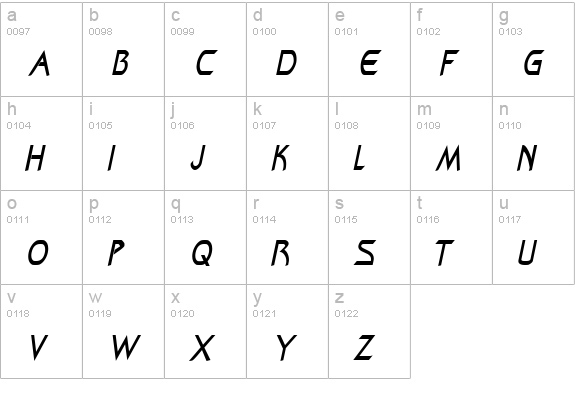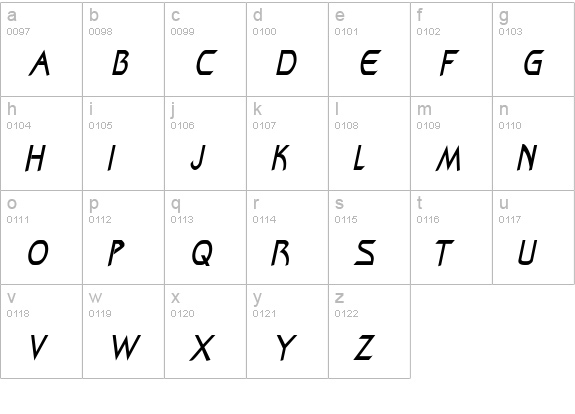
ZenonCondensed Italic Font Details
ZenonCondensed Italic is a distinctive, italic variant in the ZenonCondensed typeface family \xE2\x80\x94 well suited to design and typography projects.
ZenonCondensed Italic font is a sleek and modern typeface that exudes elegance and sophistication. Its slanted design adds a touch of dynamism and style to any text, making it perfect for a variety of design projects. The slender letterforms and subtle curves of ZenonCondensed Italic create a harmonious and balanced look that is both contemporary and timeless. This font is ideal for creating eye-catching headlines, branding materials, invitations, and more. Whether you're designing a sleek website or crafting a sophisticated print layout, ZenonCondensed Italic will elevate your projects to the next level. Best of all, ZenonCondensed Italic font is available for free download at FontsMarket.com. This means you can easily access this stylish typeface and incorporate it into your designs without any cost. Don't miss out on this opportunity to enhance your creative projects with the elegance and versatility of ZenonCondensed Italic font.